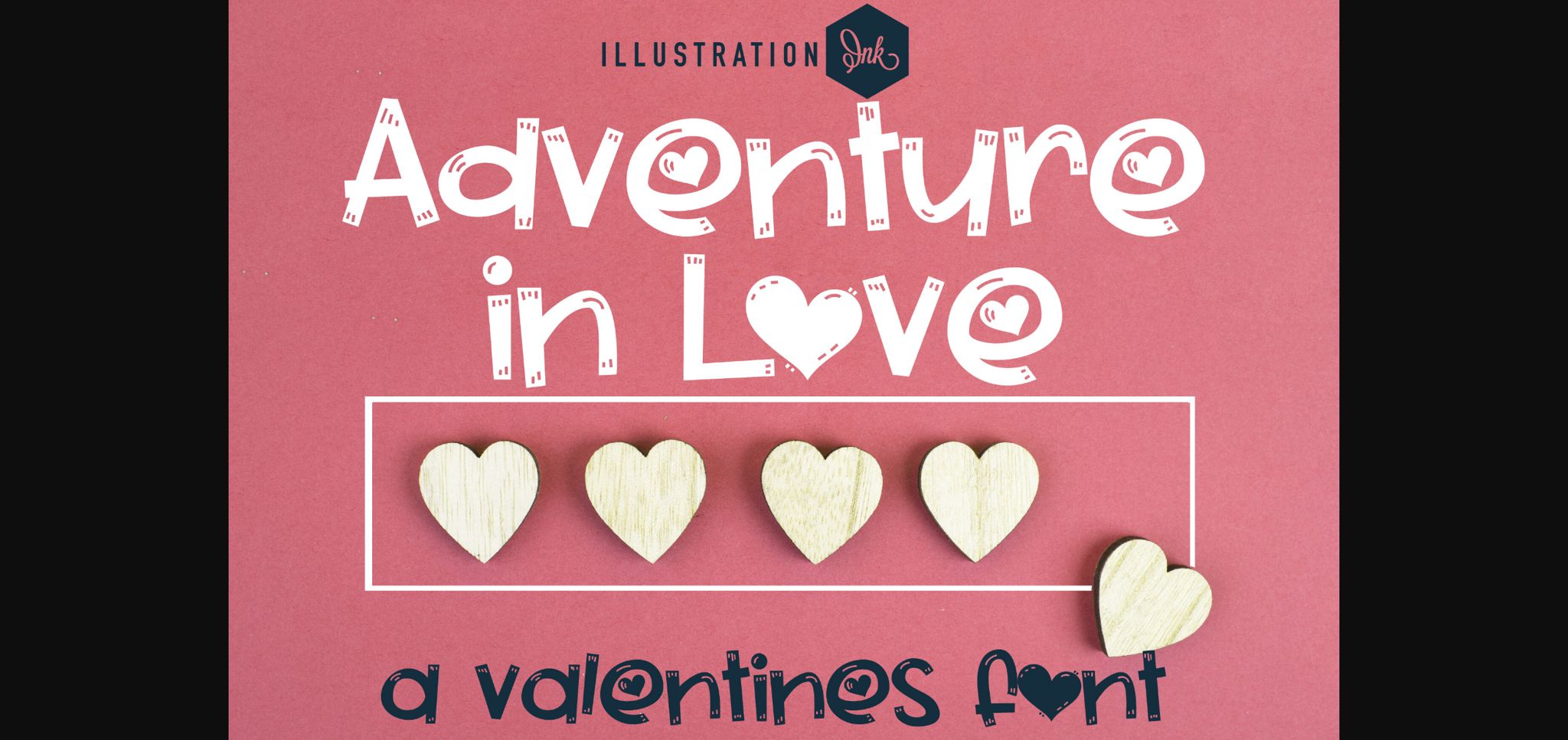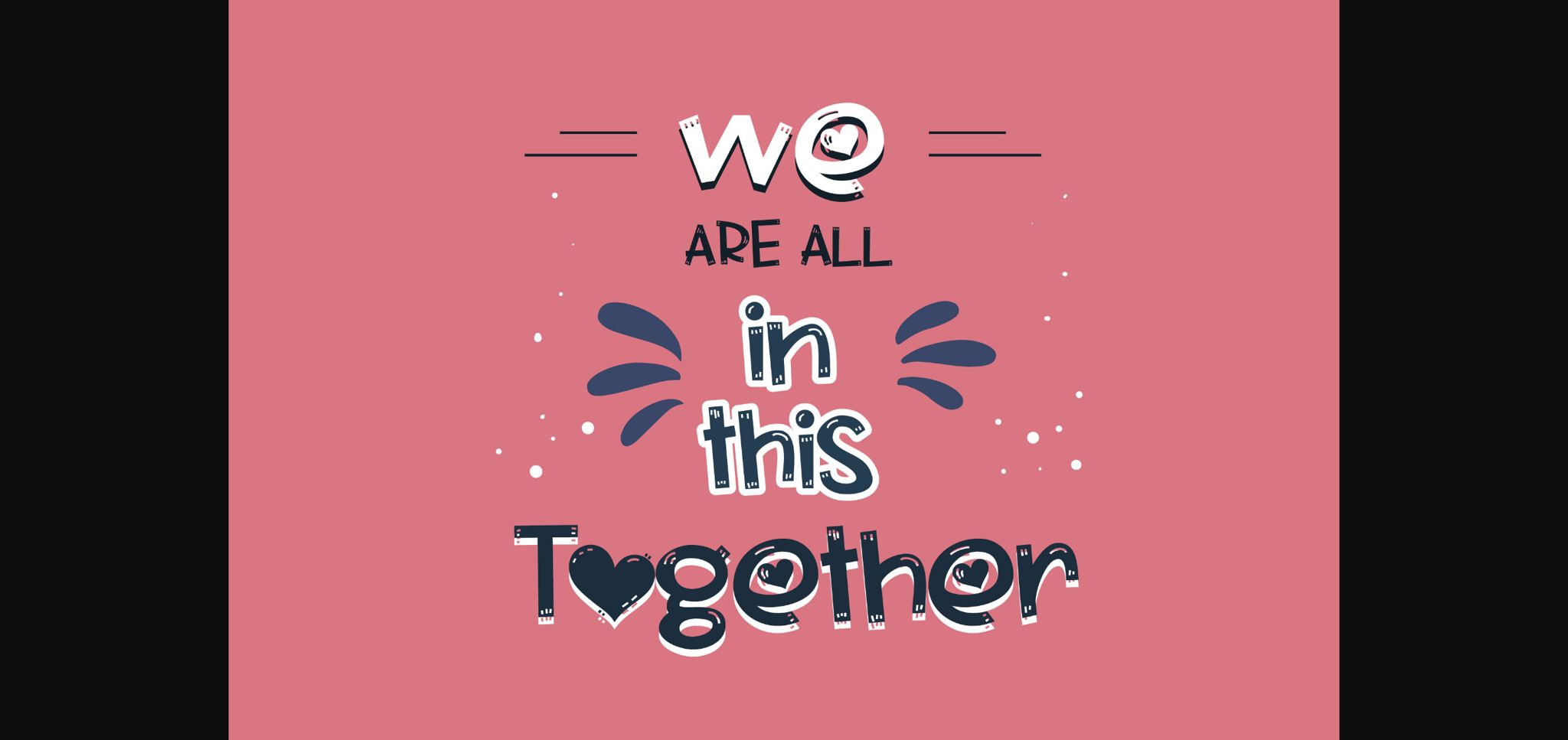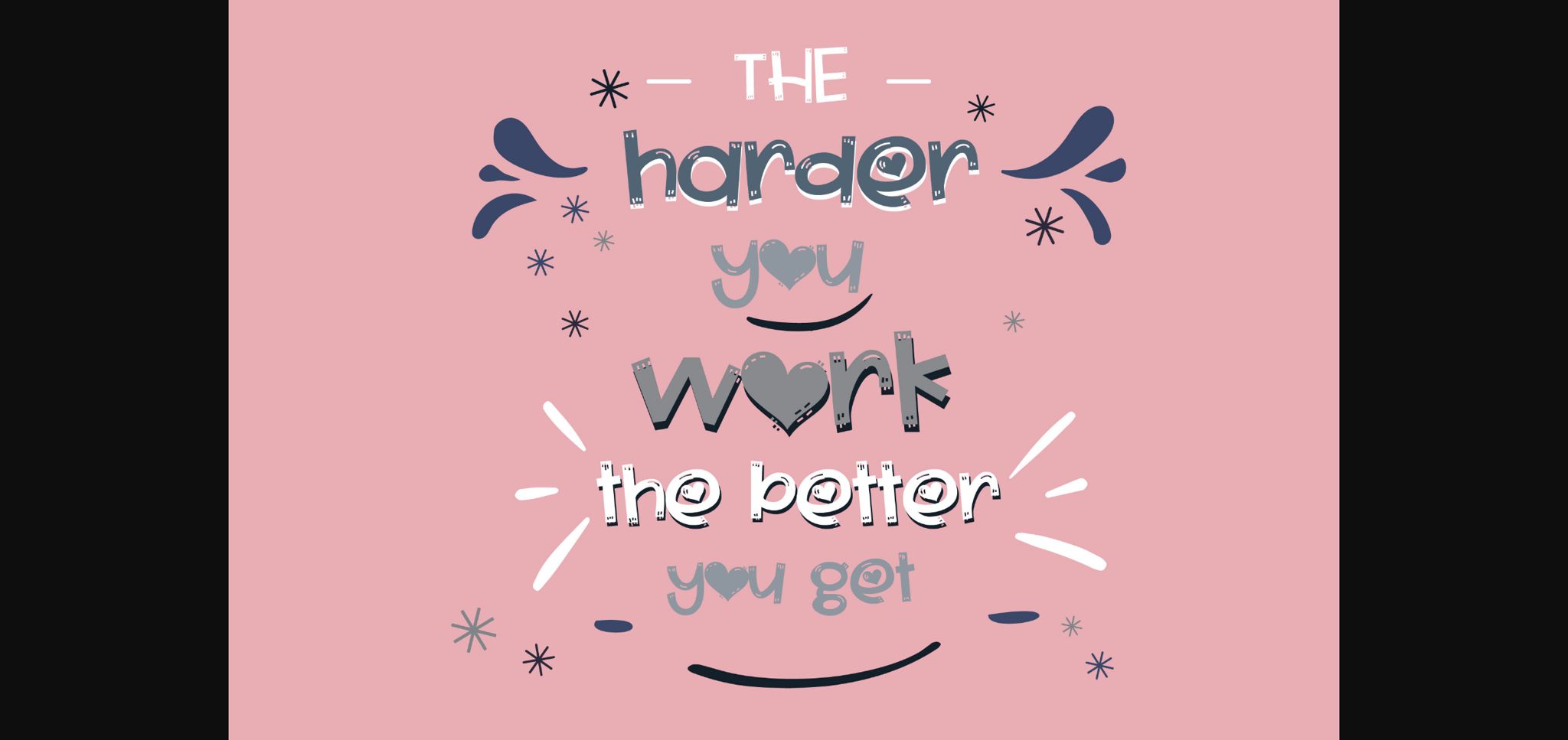
About Adventure in Love Font
This hand-crafted font is a whimsy sans serif with heart and stitches throughout. Adventure in Love is ideal for invitations, scrapbooking, and joyful designs!